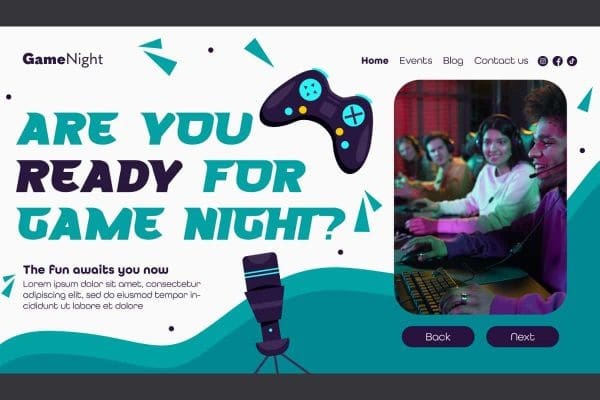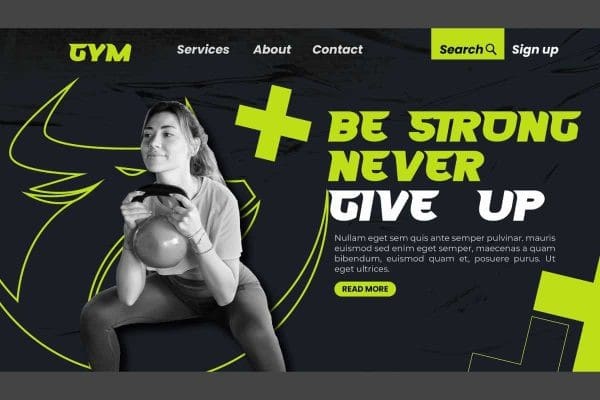
Games Space Font
Games Space Font is a playful decorative font with gaming theme by RaisProject Studio. This font can give an adorable impression from the bold letter characters and unique shape. It will be good for any designs, such as advertisement, brand image, cover, custom design, invitation, label, marketing material, poster, product packaging, quotes, stationery, signage, website page, and more!
Games Space Font includes a full set of ALL CAPS for Uppercase and Lowercase Letters, Numerals, and large range of Punctuation. This modern font with a racing vibe will be suitable for various industries, such as automotive, cafe, event or festival, fashion, game, printing, publishing, sports, etc.